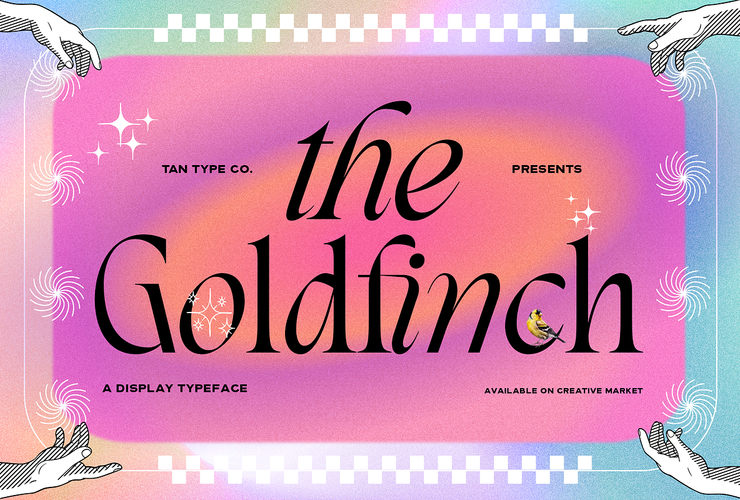
TAN The Goldfinch Font Free Download
About TAN THE GOLDFINCH
TAN – GOLDFINCH is an elegant serif. Stylish with a twist.—TTF, OTF, WOFF, WOFF2Multilingual SupportFree future updates—Our fonts are supported by most design software, please make sure it can read the OpenType fonts to be able to access all ligatures.